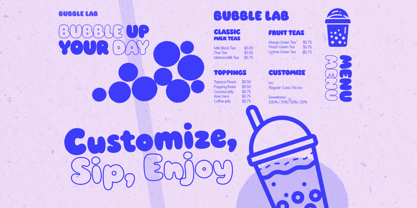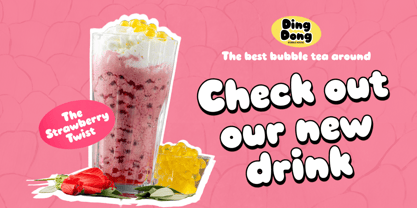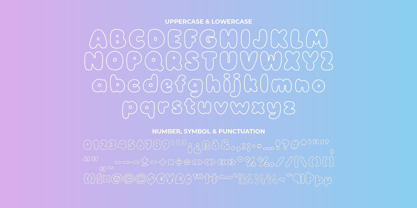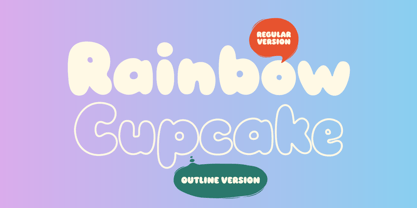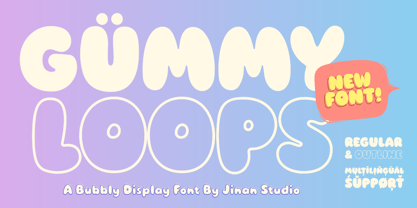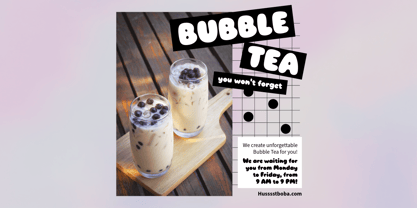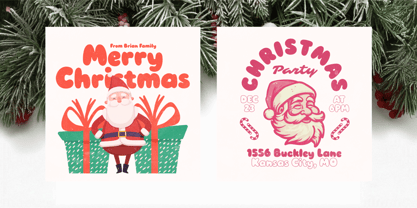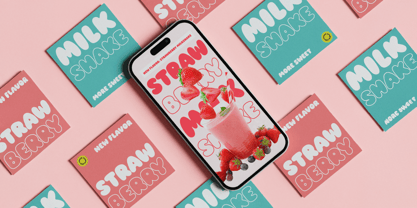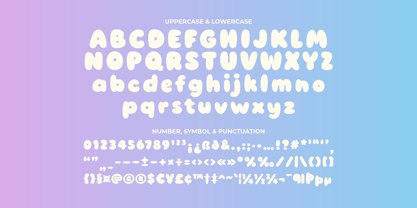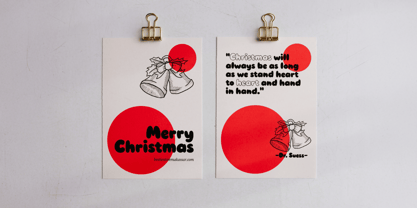
Gummy Loops
by Jinan Studio
The Gummy Loops Font Family was designed by Andi Syahdang, Ainun Jinan and published by Jinan Studio. Gummy Loops contains 2 styles and family package options. More about this family
Gummy Loops is a super playful bubbly display font designed to bring instant joy to any project. With its soft, rounded shapes and extra-cute personality, this font feels like candy for your eyes — perfect for kids’ designs, branding, packaging, posters, stickers, and anything that needs a burst of fun. It comes in Regular and Outline styles, giving you flexible options for bold titles, layered designs, or colorful compositions. Gummy Loops also includes multilingual support, making it easy to use for audiences around the world. Whether you're creating adorable product labels, cheerful social media graphics, or eye-catching logos, Gummy Loops adds a sweet, friendly, and irresistible charm to your designs. Bring your ideas to life with a font that’s as cute and bouncy as it looks! Features A set of uppercase and lowercase glyphs Number, symbol, and punctuation Multilingual Support Outline Version
Designers: Andi Syahdang, Ainun Jinan
Foundry: Jinan Studio